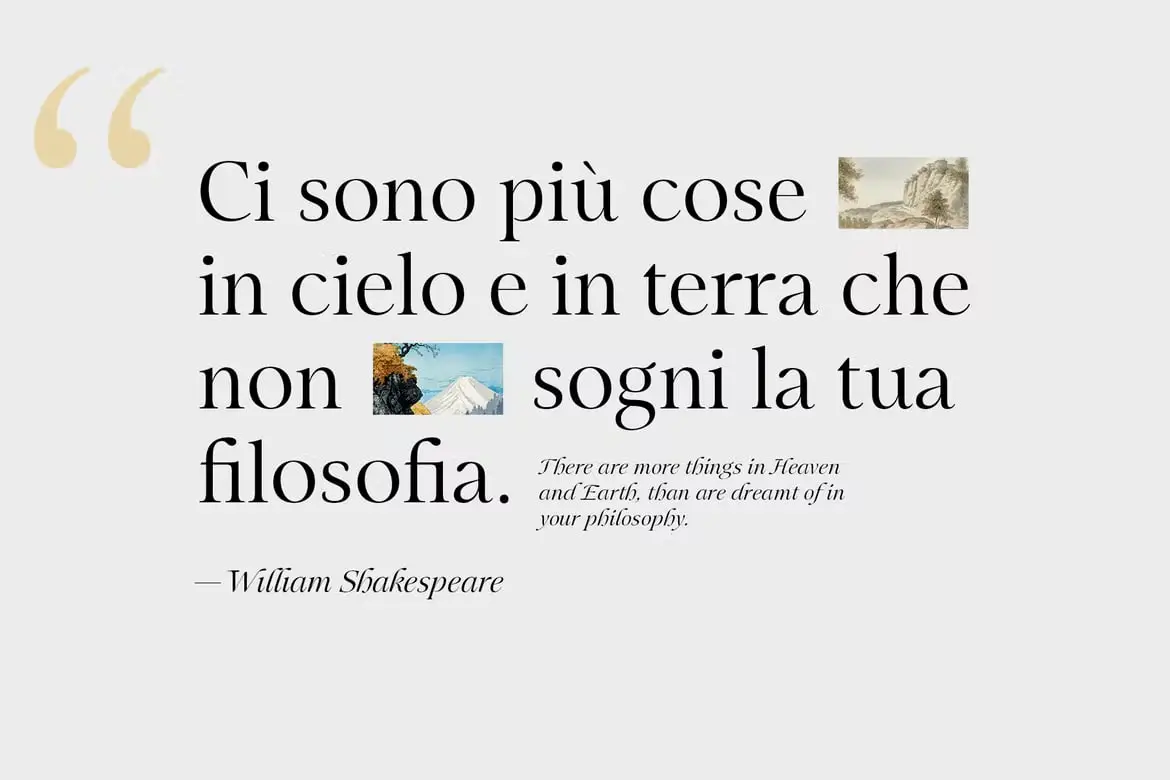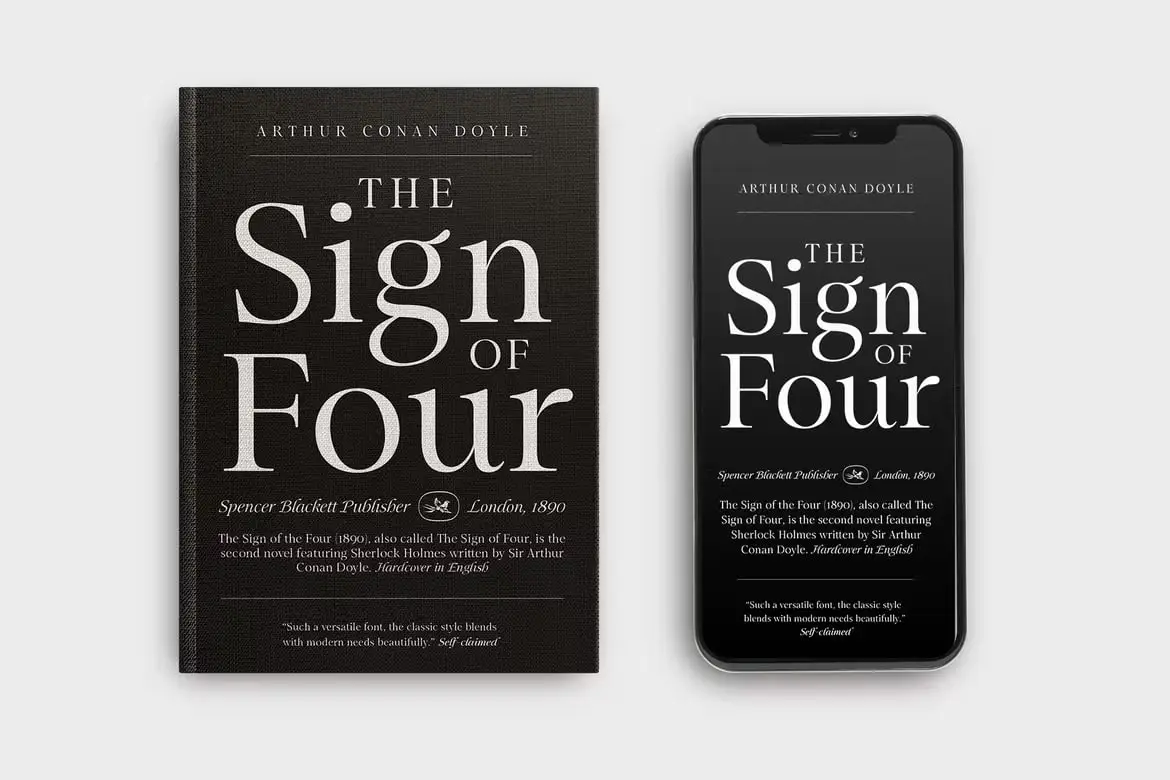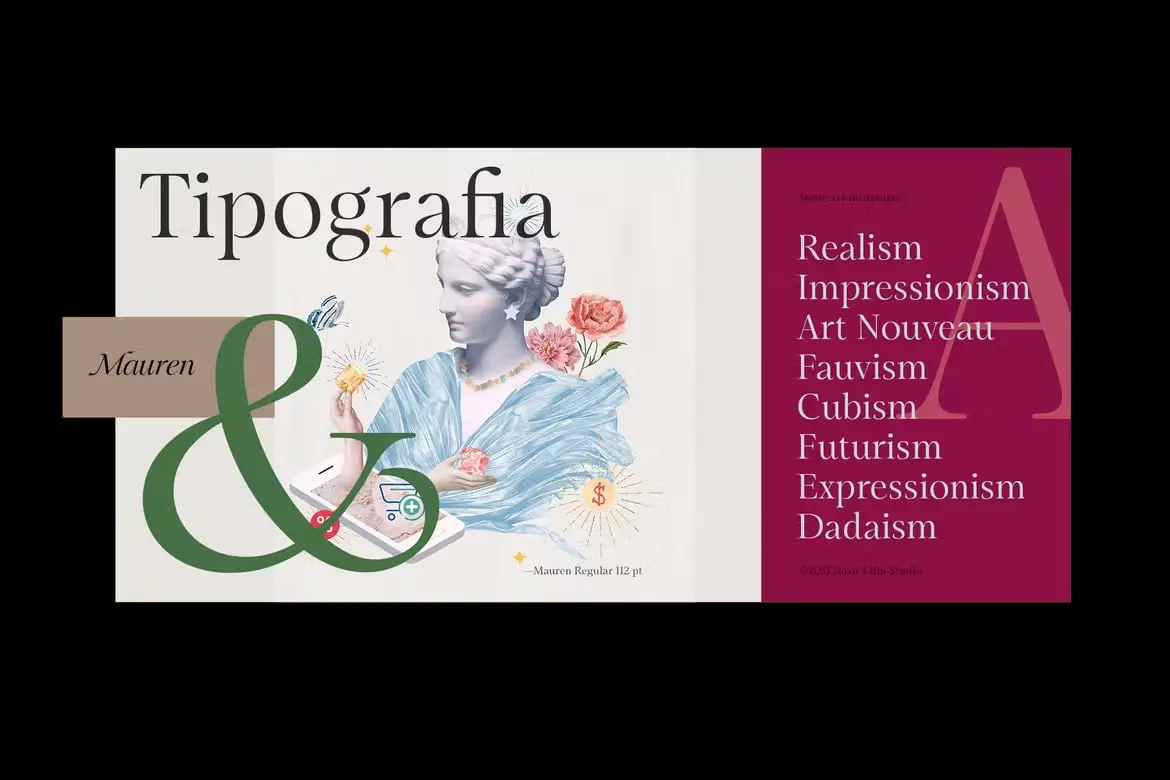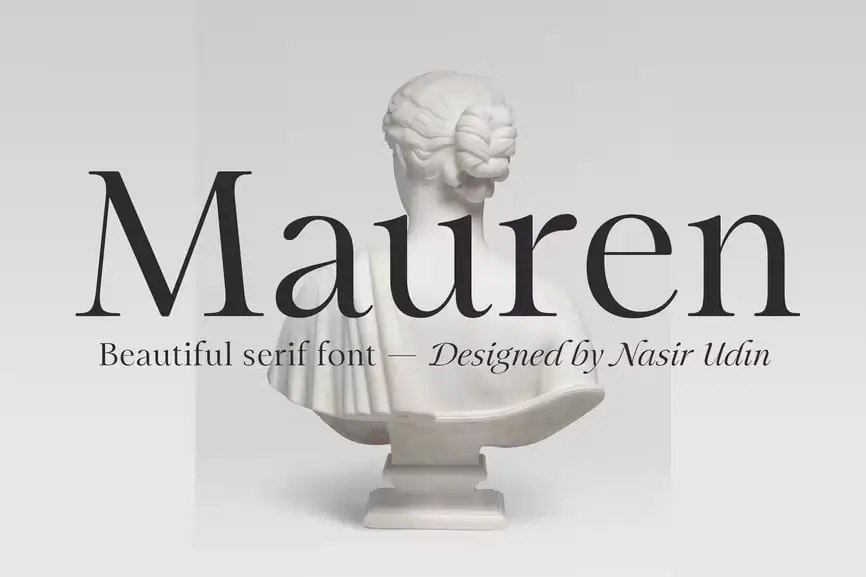
Mauren Font
The Mauren Font is a beautifully crafted typeface that combines elegance with modern design. Ideal for a variety of applications, this font can elevate your branding, logo designs, and more. With its unique character shapes and balanced proportions, Mauren is perfect for both digital and print projects.
• Perfect for branding, logos, and marketing materials
• Use in web design for a modern look
• Ideal for print applications like business cards and brochures